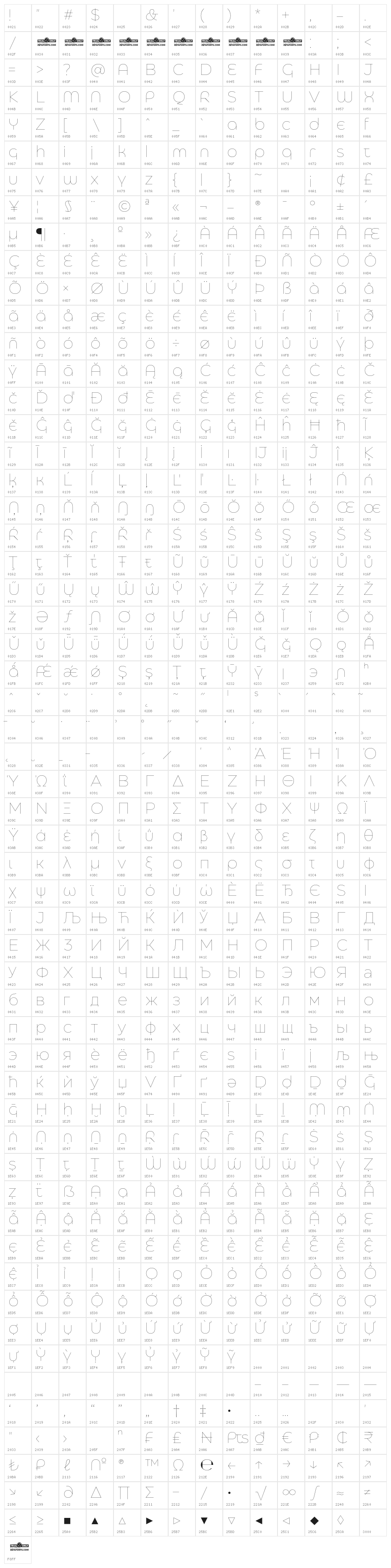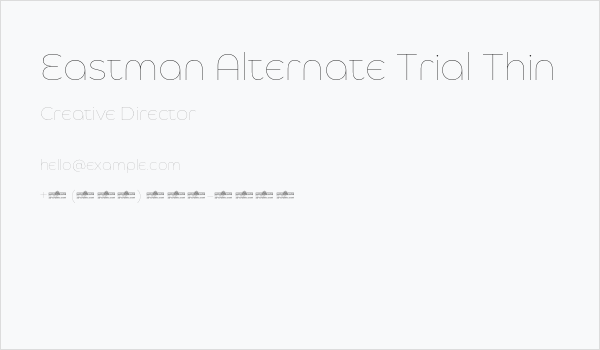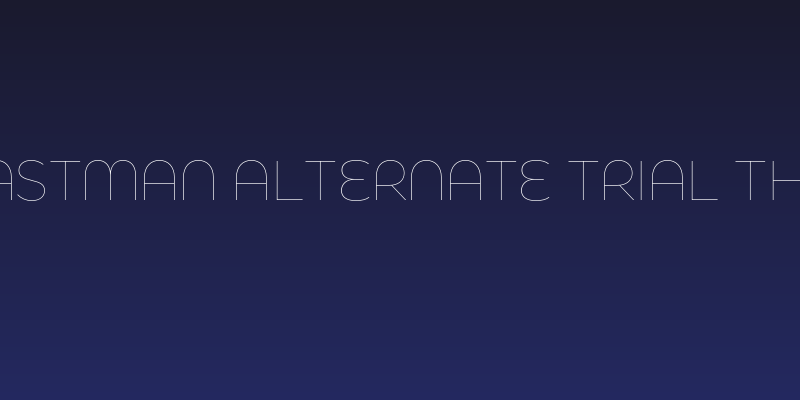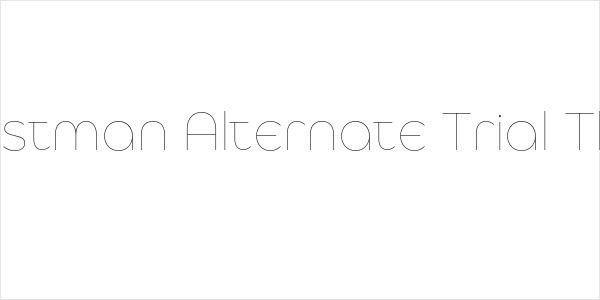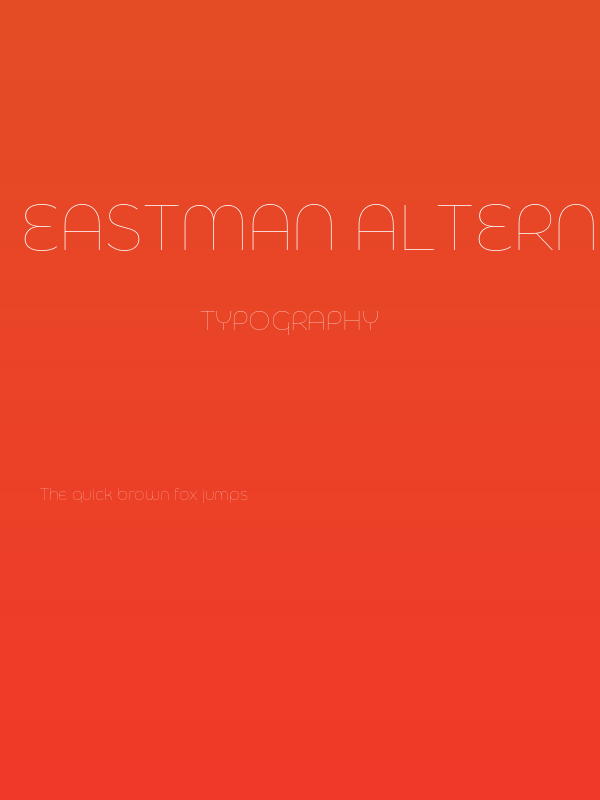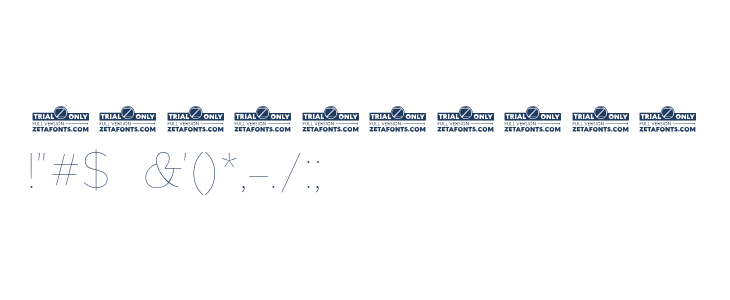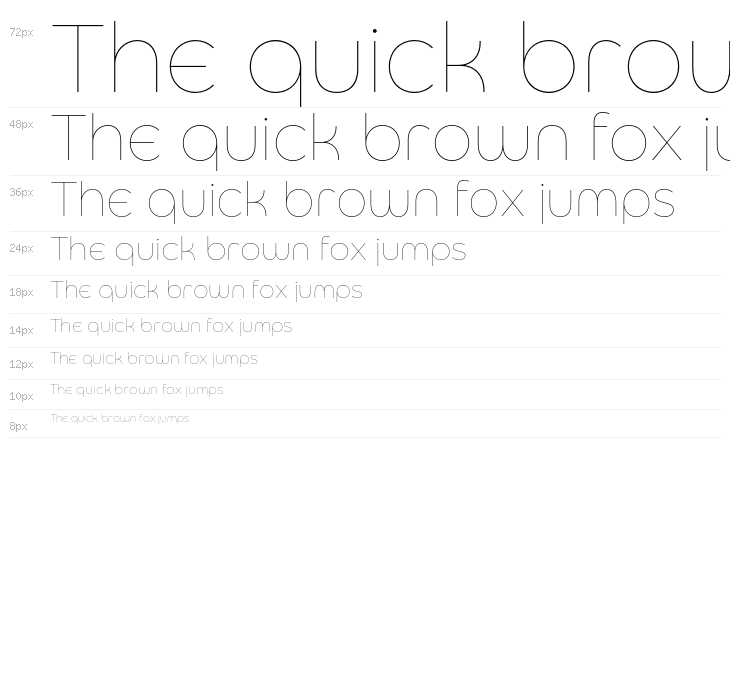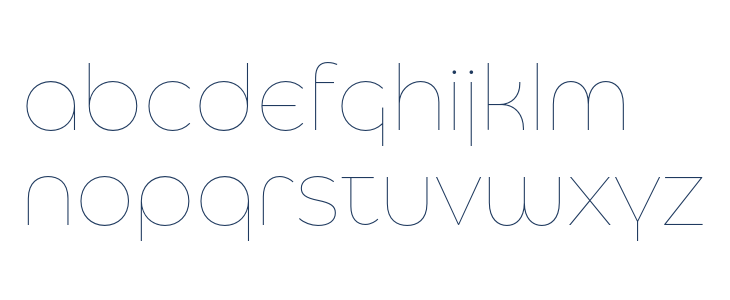
Eastman Alternate Trial Thin Font
Eastman Alternate Trial Thin Description
This font features a sleek, minimalist design with thin, clean lines and a modern aesthetic. The characters are evenly spaced, providing a balanced and airy appearance. The uppercase letters are geometric and symmetrical, while the lowercase letters maintain a consistent height and form. The numerals and special characters follow the same thin, elegant style, making the font versatile for various applications. Its simplicity and clarity make it suitable for contemporary design projects.
| Use Case | Headlines, Logos, Digital interfaces |
| Proposed Projects | Ideal for modern branding, minimalist posters, digital interfaces, and editorial design. |